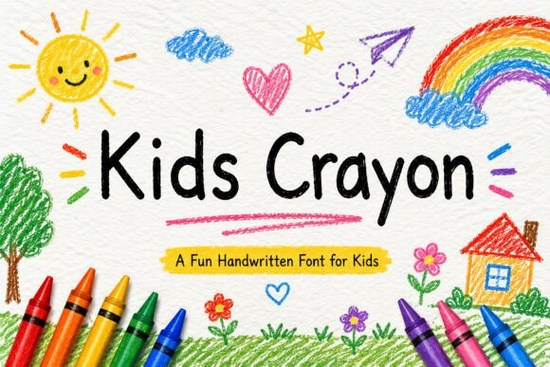
If you've been searching for a playful, kid-friendly typeface that actually looks like it was drawn with a crayon, the Kids Crayon Font is worth a close look. This handwritten font mimics real crayon strokes, making it a natural fit for classroom materials, party invitations, children's books, and all kinds of DIY projects. Below, I'll walk through what makes it useful, who it's best for, and how to get the most out of it.
What Makes This Font Look Like a Real Crayon?
The charm of Kids Crayon lies in its hand-drawn texture. The strokes feel slightly uneven in the way real crayon marks do not messy, but genuinely childlike. That warmth is hard to fake with standard fonts. It includes both uppercase and lowercase letters, numbers, punctuation, and multilingual support, so you're covered for most English and European-language projects without switching typefaces mid-design.
Who Should Use a Crayon-Style Handwritten Font?
This font isn't just for one type of creator. Here's who tends to get the most mileage out of it:
- Teachers and homeschool parents worksheets, flashcards, reading logs, and classroom door decorations all feel more approachable with a playful typeface.
- Print-on-demand sellers t-shirt designs, stickers, and tote bags for the kids' market benefit from a font that reads as fun and approachable.
- Small business owners if you sell toys, kids' clothing, or party supplies, a crayon font adds personality to packaging, logos, and social posts.
- Crafters Cricut and Silhouette users can create birthday banners, nursery wall art, and custom greeting cards with a handmade feel.
- Authors and illustrators children's book titles and chapter headings look more inviting in a style that matches young readers' world.
What Projects Work Best With Kids Crayon?
Because the letterforms are bold and easy to read, this font works well at both large and small sizes. Some popular uses include:
- Birthday invitations and party signage
- Educational worksheets and activity pages
- Nursery and playroom wall decor
- Social media graphics for family-oriented brands
- Toy packaging and product labels
- T-shirt and merchandise designs
- Sticker sheets and planner accessories
- Logo design for kids' businesses or daycares
How Does It Pair With Other Fonts?
A crayon display font works best when you pair it with something cleaner for body text. If you need a readable complement, a casual handwritten style like Backpack keeps the friendly tone without competing for attention.
For projects that need a little more elegance say, a baby shower invitation or a boutique brand a flowing script option like Willow adds sophistication while still feeling personal.
If you're working on something with a romantic or vintage vibe, a classic script style such as Bridgerton pairs surprisingly well with playful display fonts in the right layout.
Looking for other handwritten options with a softer touch? Softie Note is a rounded script that works nicely for cozy, approachable designs. And for projects where love and warmth are the theme, the Handmade With Love typeface carries a similar handcrafted energy.
Tips for Getting the Best Results
- Use it at larger sizes. Crayon textures show up best in headings, titles, and display text. For small body copy, switch to a simple sans-serif.
- Pair with bright, simple colors. Think primary reds, blues, yellows, and greens the same palette kids reach for in a crayon box.
- Add slight rotation or scaling to individual letters if your design tool allows it. This reinforces the hand-drawn look.
- Test on your actual product before listing. Print a sample sticker or t-shirt mockup to make sure the texture reads clearly at the final size.
Quick Checklist Before You Buy
Ask yourself these questions:
- ✅ Does my project target kids, parents, teachers, or family-oriented audiences?
- ✅ Do I need both upper and lowercase characters?
- ✅ Will I use it in Cricut, Silhouette, Canva, or similar tools?
- ✅ Am I looking for a handmade, crayon-style texture rather than a polished script?
- ✅ Do I need multilingual support for non-English characters?